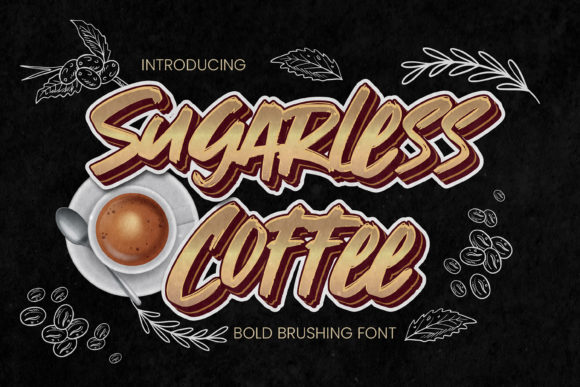
Behold the Sugarless Coffee Font, a captivating display typeface crafted by Gassstype Studio. Immerse yourself in a world of urban flair and artistic expression as you explore this exceptional font. Unleash your creativity and make a bold statement with Sugarless Coffee, the perfect font for those seeking a unique and impactful design experience.
Journey through the realm of street art culture and let your imagination run wild. Picture your designs transformed with the edgy charm of Sugarless Coffee. Envision your t-shirts, sportswear, logos, advertisements, and clothing adorned with this electrifying font, demanding attention and captivating hearts.
Embrace the versatility of Sugarless Coffee and witness how effortlessly it adapts to a myriad of design projects. Its captivating curves and bold strokes command attention, while its inherent legibility ensures your message is conveyed with clarity and impact. Whether you're a seasoned designer or just starting your creative journey, Sugarless Coffee is your passport to extraordinary designs.
Indulge in the artistic freedom that Sugarless Coffee offers. Let your creativity soar as you explore endless possibilities, from eye-catching headlines to captivating posters. This font is the perfect companion for those who dare to stand out and make a lasting impression.
With Sugarless Coffee, you hold the key to unlocking a world of design possibilities. Its urban-inspired aesthetic and versatility make it a must-have for anyone seeking to make a statement. Embrace the allure of street art and elevate your designs to new heights.